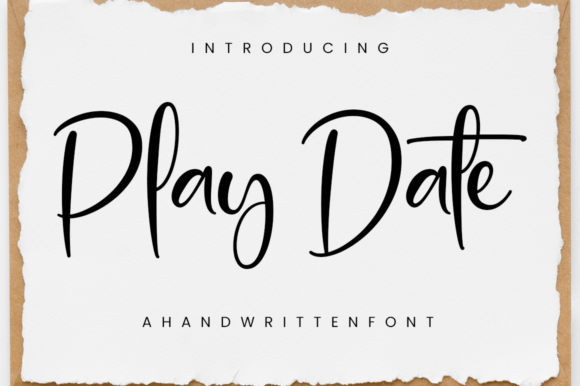
Journey into the realm of sophistication and grace with Play Date Font, a script font born from the desire to bestow your designs with an aura of elegance and charm. Each letter, meticulously crafted with the utmost care, dances across your screen as if penned by a master calligrapher. Be it a heartfelt message, a captivating logo, or an enchanting invitation, Play Date Font transforms your words into works of art, leaving an indelible mark on the hearts and minds of your audience.
Born from the creative vision of RasdiType, a renowned foundry known for its exquisite artistry, Play Date Font embodies the essence of timeless beauty. Its flowing strokes, reminiscent of a gentle summer breeze, evoke a sense of nostalgia and romance. Whether you're a seasoned designer seeking to elevate your projects or a novice seeking to add a touch of refinement to your creations, Play Date Font will effortlessly guide you towards design excellence.
Step into a world where your words take center stage, adorned with the elegance of Play Date Font. Let your imagination soar as you explore its boundless versatility. From wedding invitations that exude ethereal charm to branding materials that radiate professionalism, Play Date Font adapts seamlessly to your creative vision, effortlessly elevating your designs to new heights.
Unleash the power of Play Date Font and let your creativity flourish. Its delicate curves and sweeping lines will transform your designs into captivating masterpieces, leaving a lasting impression on all who behold them. Embrace the allure of Play Date Font and embark on a journey of design excellence today. Make it yours and unlock a world of endless possibilities.